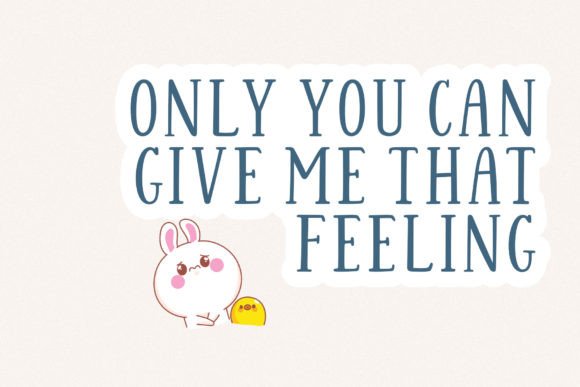
Introduction to Cute Bianca Font
Have you ever been working on a creative project, pouring your heart and soul into it, and suddenly, you need the perfect font to bring it all together? The struggle is real, but what if I told you there’s a solution that will make your designs shine? Enter Cute Bianca Font, a delightful serif handwritten typeface that will add a touch of charm to your work.
As a designer, you understand the importance of having a versatile and high-quality design resource at your fingertips. Cute Bianca Font is more than just a pretty face – it’s a reliable companion for branding, quotes, logos, stationery design, and even T-shirts. With its transparent background and free download options, you can experiment with this font without breaking the bank.
What sets Cute Bianca Font apart is its unique blend of cuteness and sophistication. Whether you’re crafting a brand image or designing memorable quotes, this font promises to make your work truly adorable. In this article, we’ll dive deeper into the world of Cute Bianca Font and explore its endless possibilities.
Key Features of Cute Bianca Font
- Unique, hand-drawn design with a playful and whimsical feel, making it perfect for creative projects.
- High-quality design resource featuring a transparent background, ideal for designers who want to add a touch of elegance to their work.
- Comes in a single font weight, with a large character set that includes uppercase and lowercase letters, numbers, and punctuation marks.
- Designed to be highly legible at various font sizes and resolutions, making it suitable for both digital and print applications.
- Part of a larger font family, allowing designers to easily mix and match different styles to create a cohesive look for their creative project.
- Perfect for designers looking for a fun and quirky design element to add to their design resource library.
Honest Review: Cute Bianca Font
As a designer, I’m always on the lookout for high-quality design resources to elevate my creative projects. Recently, I stumbled upon the Cute Bianca Font, and I was excited to give it a try. After diving in, I have to say that it’s been a solid addition to my design arsenal.
- Transparent background option: This feature allows me to easily use the font on different backgrounds, giving me more creative freedom.
- High quality: The font is crisp and clear, with a unique and playful feel that adds a touch of personality to my designs.
- Limited font styles: While the font is cute and feminine, it’s not suitable for all design projects. The limited font styles may not be enough for designers who need a more versatile font.
Overall, I’m impressed with the Cute Bianca Font. It’s a great addition to any designer’s toolkit, and its free download makes it an attractive option for designers on a budget. However, its limitations may make it less suitable for certain design projects. As with any design resource, it’s essential to consider your specific needs before deciding whether to use it.
Cute Bianca Font
The Cute Bianca Font is a high-quality design resource perfect for creative projects that require a touch of whimsy. With its transparent background, this font is ideal for overlaying on images or using as a standalone element.
Tips and Best Practices
To get the most out of the Cute Bianca Font, use it sparingly to add visual interest to your designs. Experiment with different font sizes, colors, and combinations to create unique and eye-catching effects.
The Cute Bianca Font is perfect for:
- Designing children’s products or packaging
- Creating invitations or greeting cards
- Adding a touch of whimsy to social media graphics